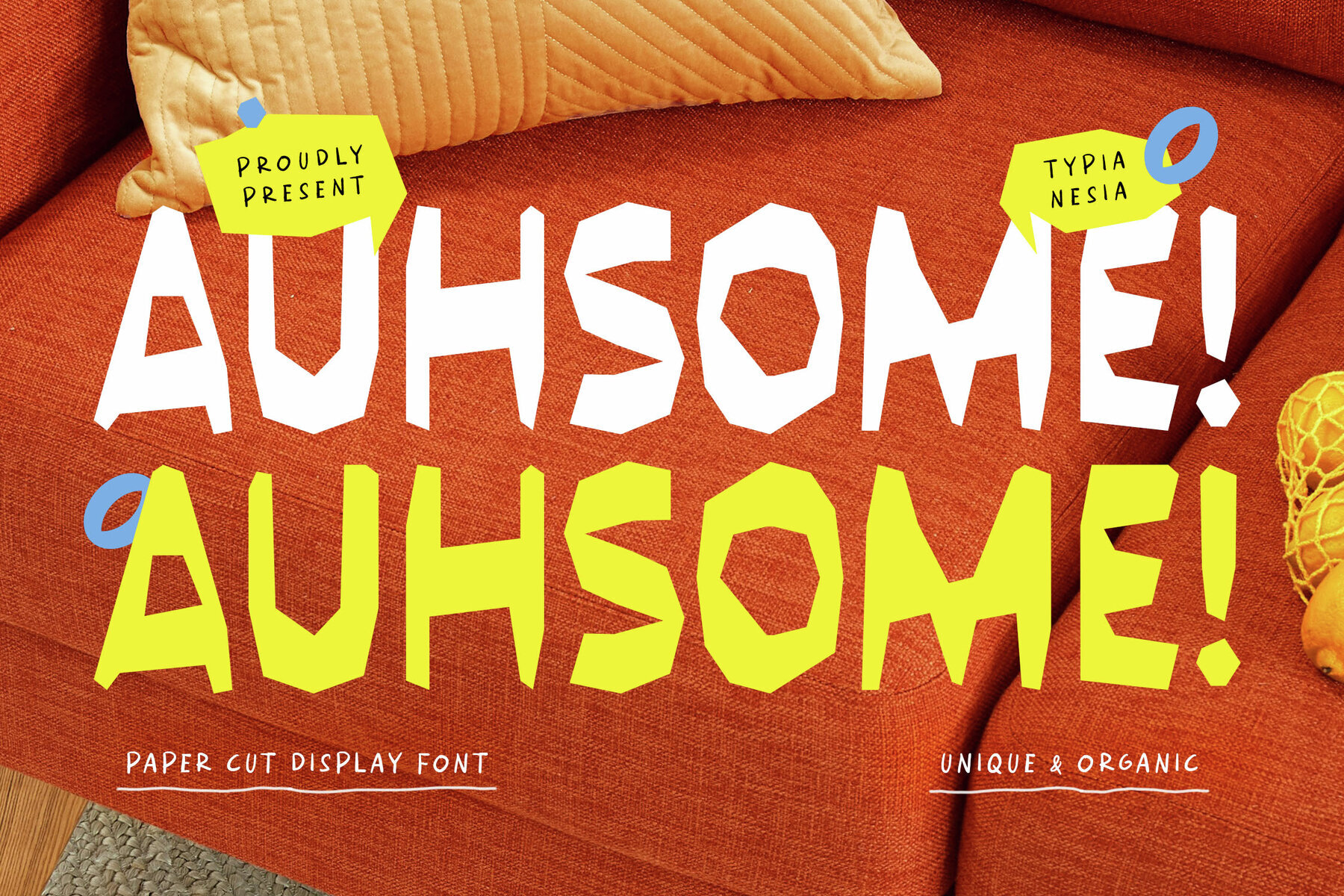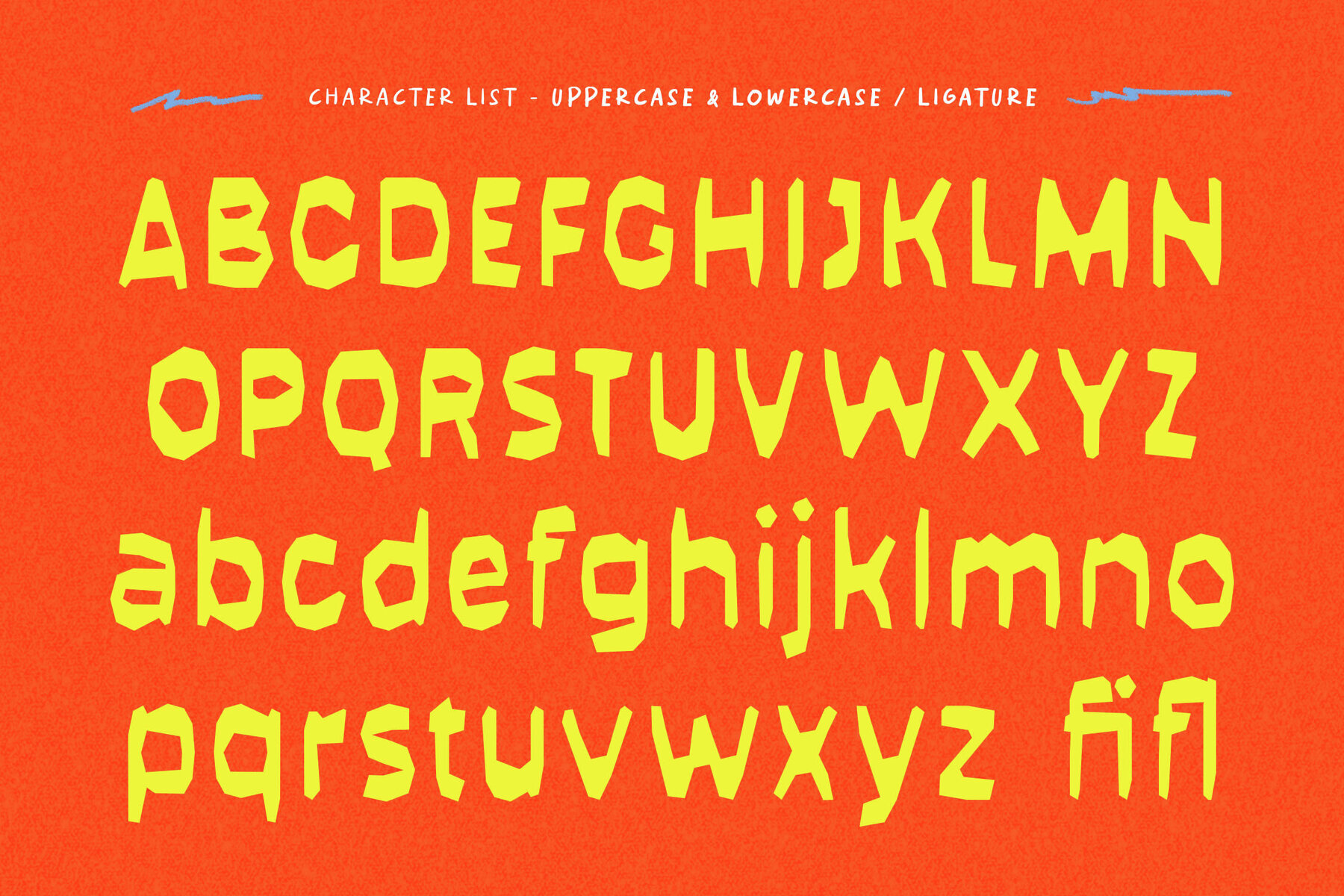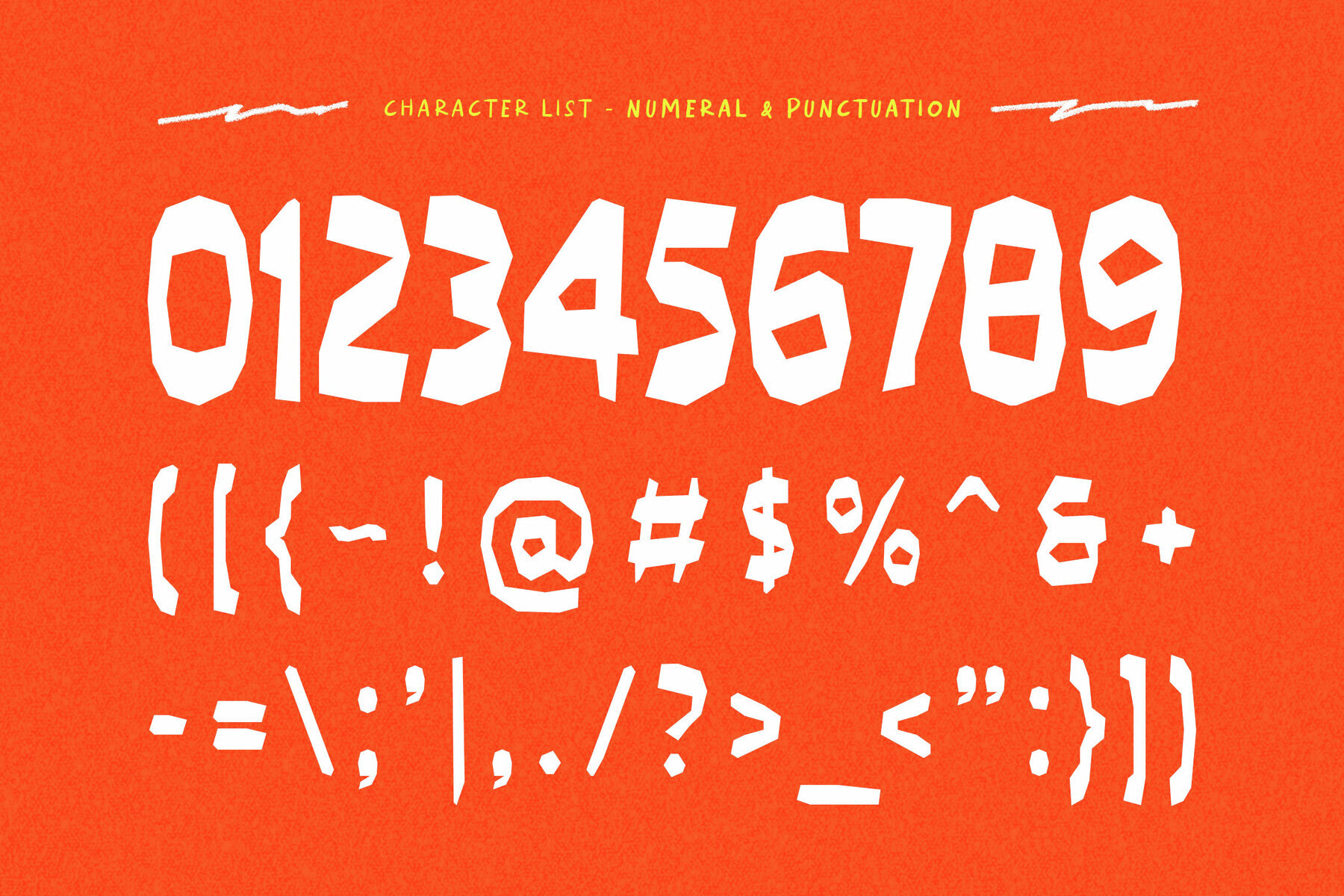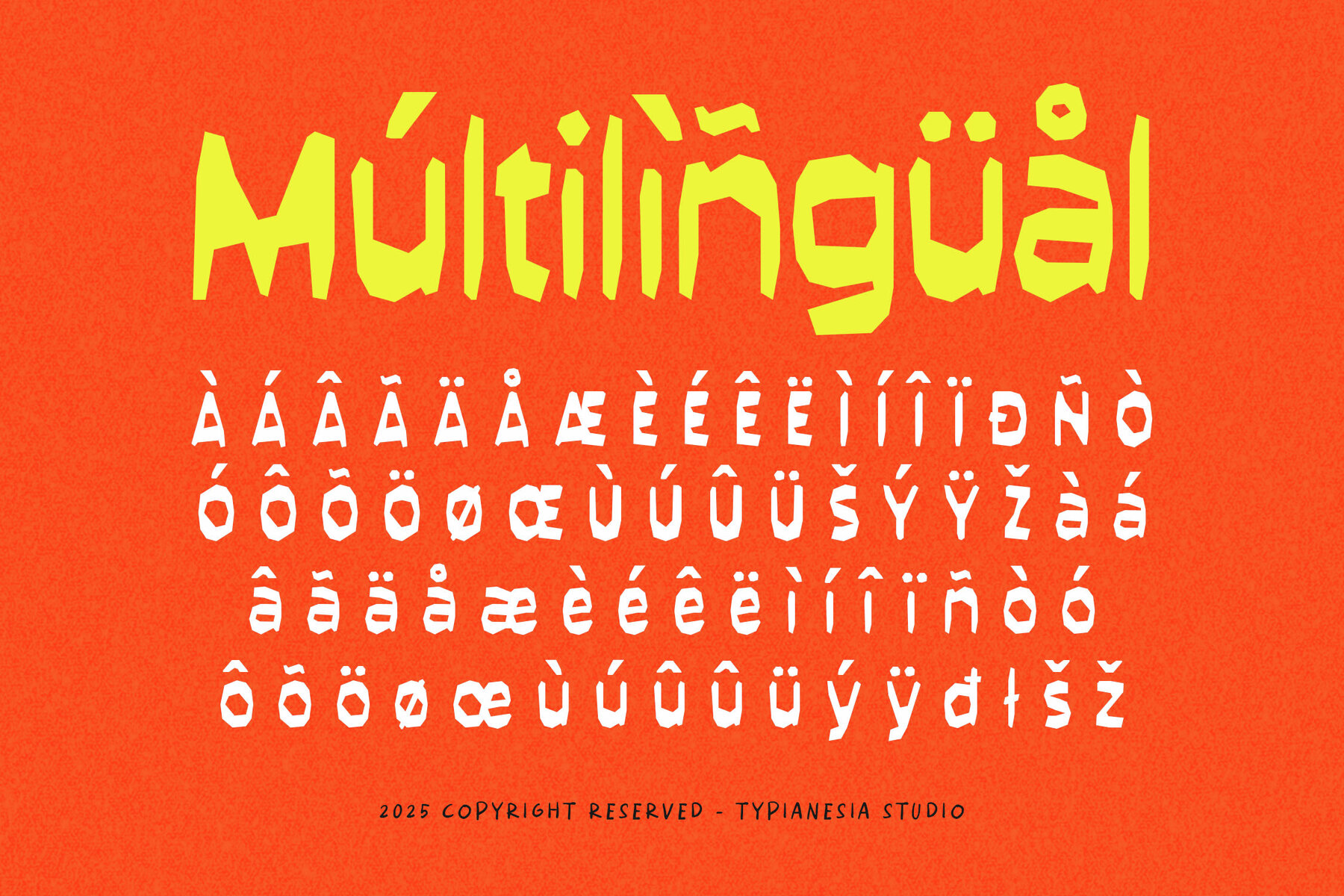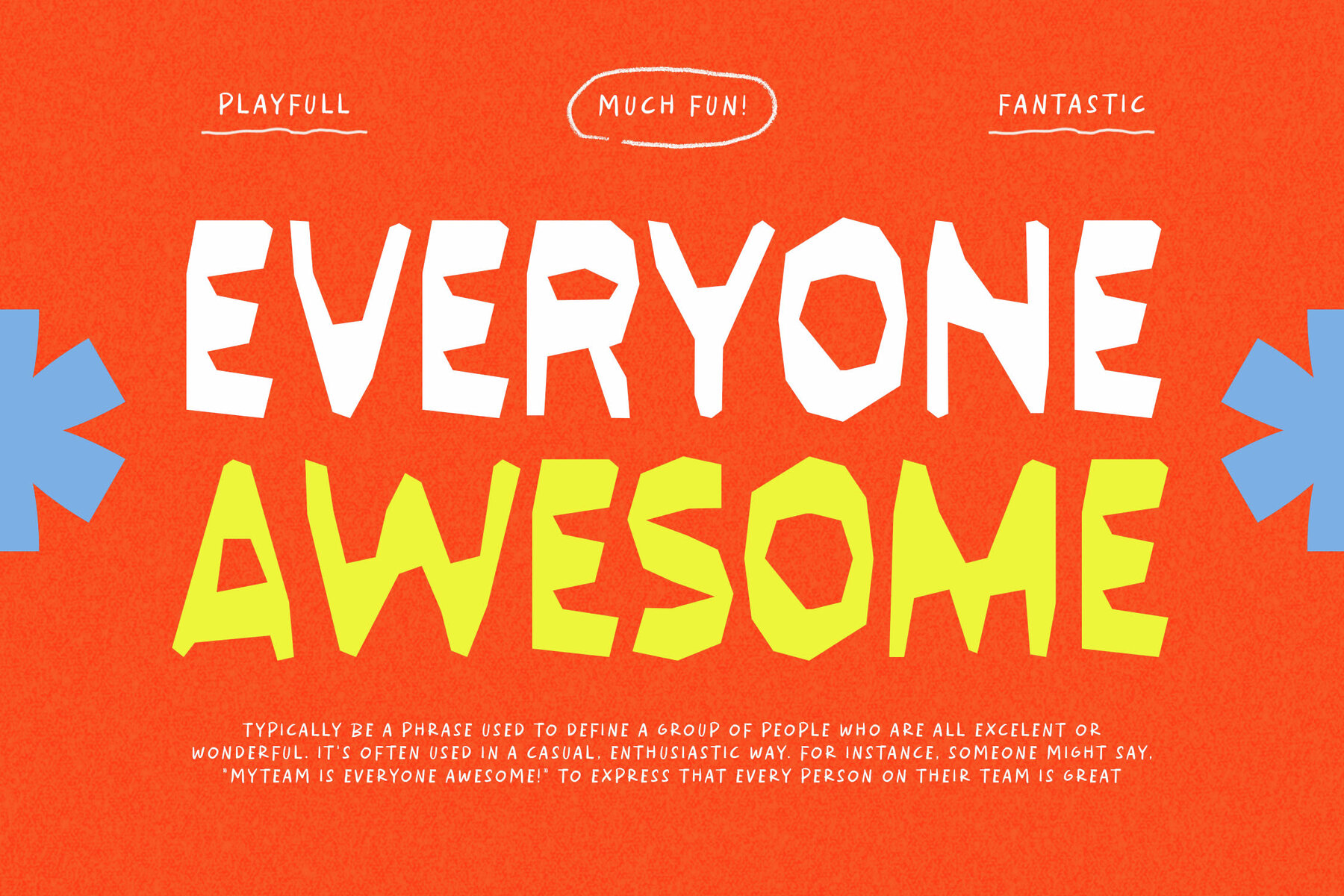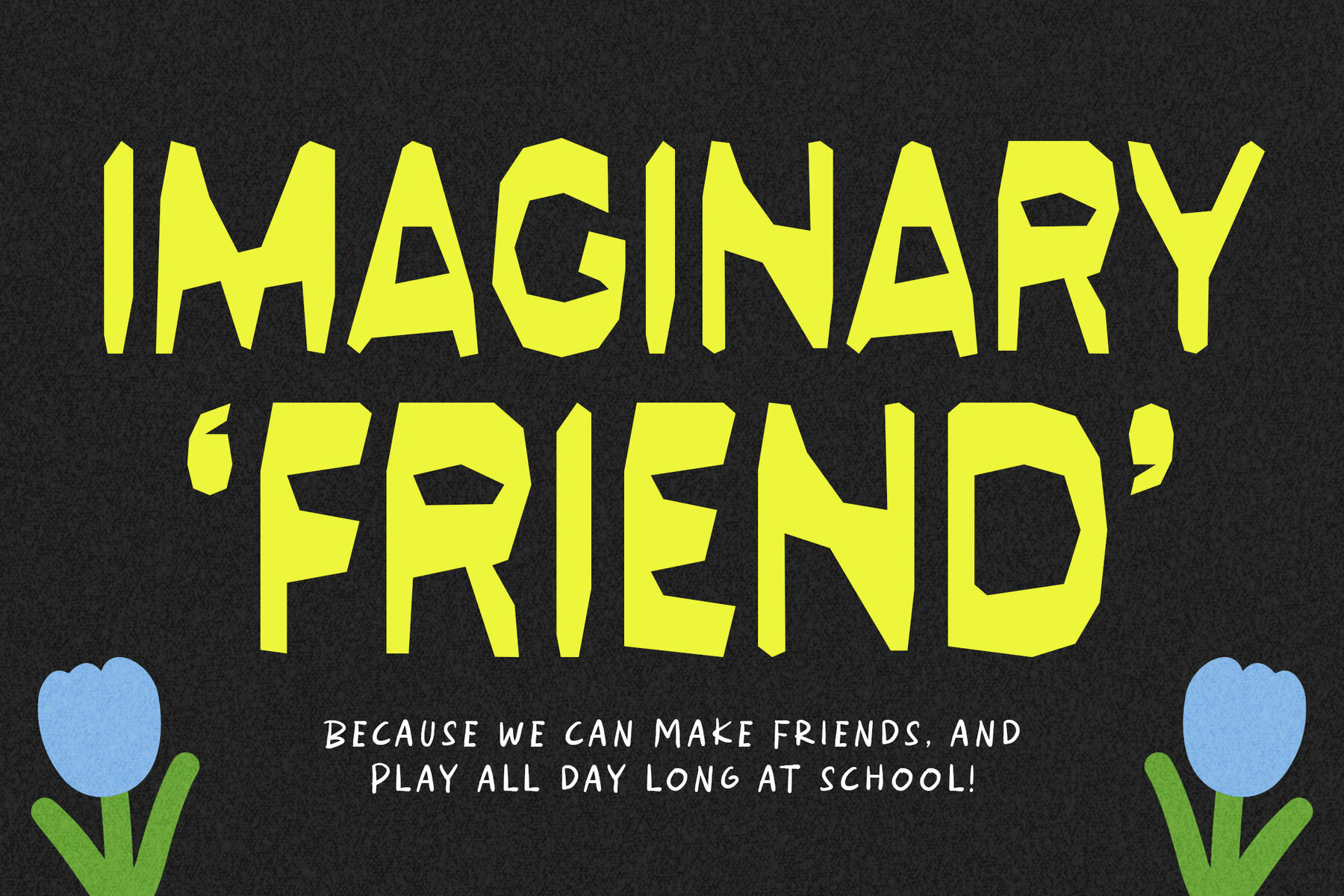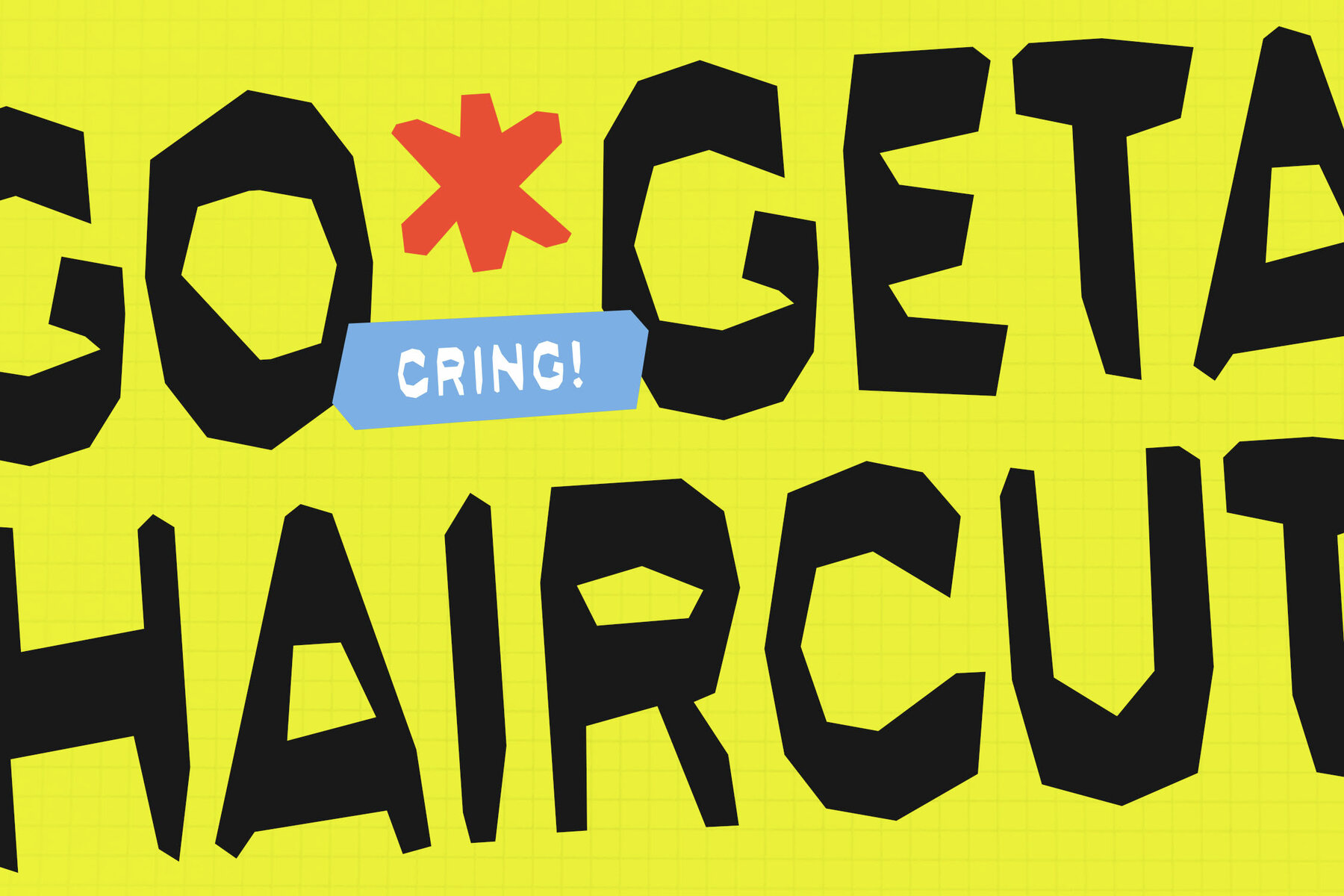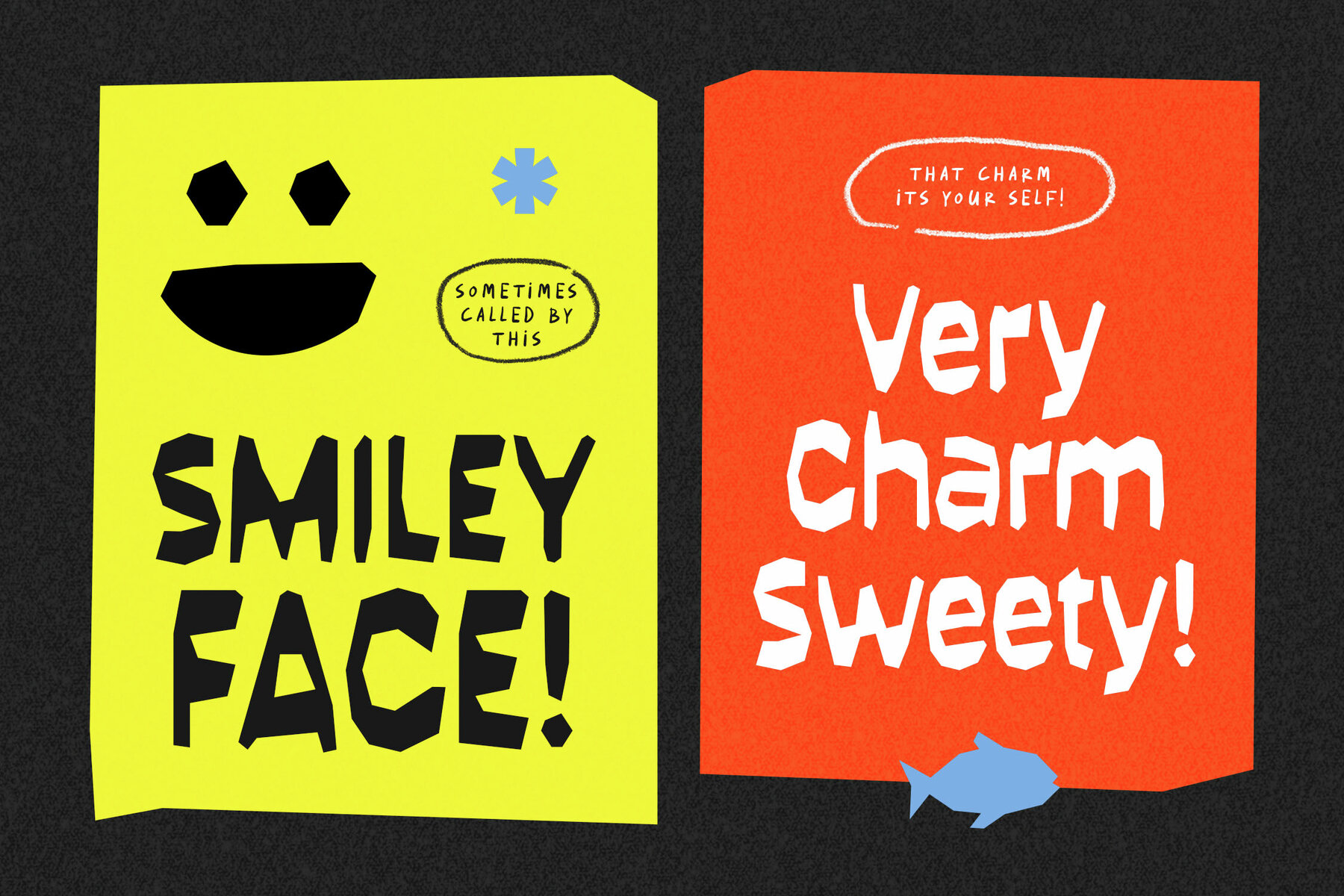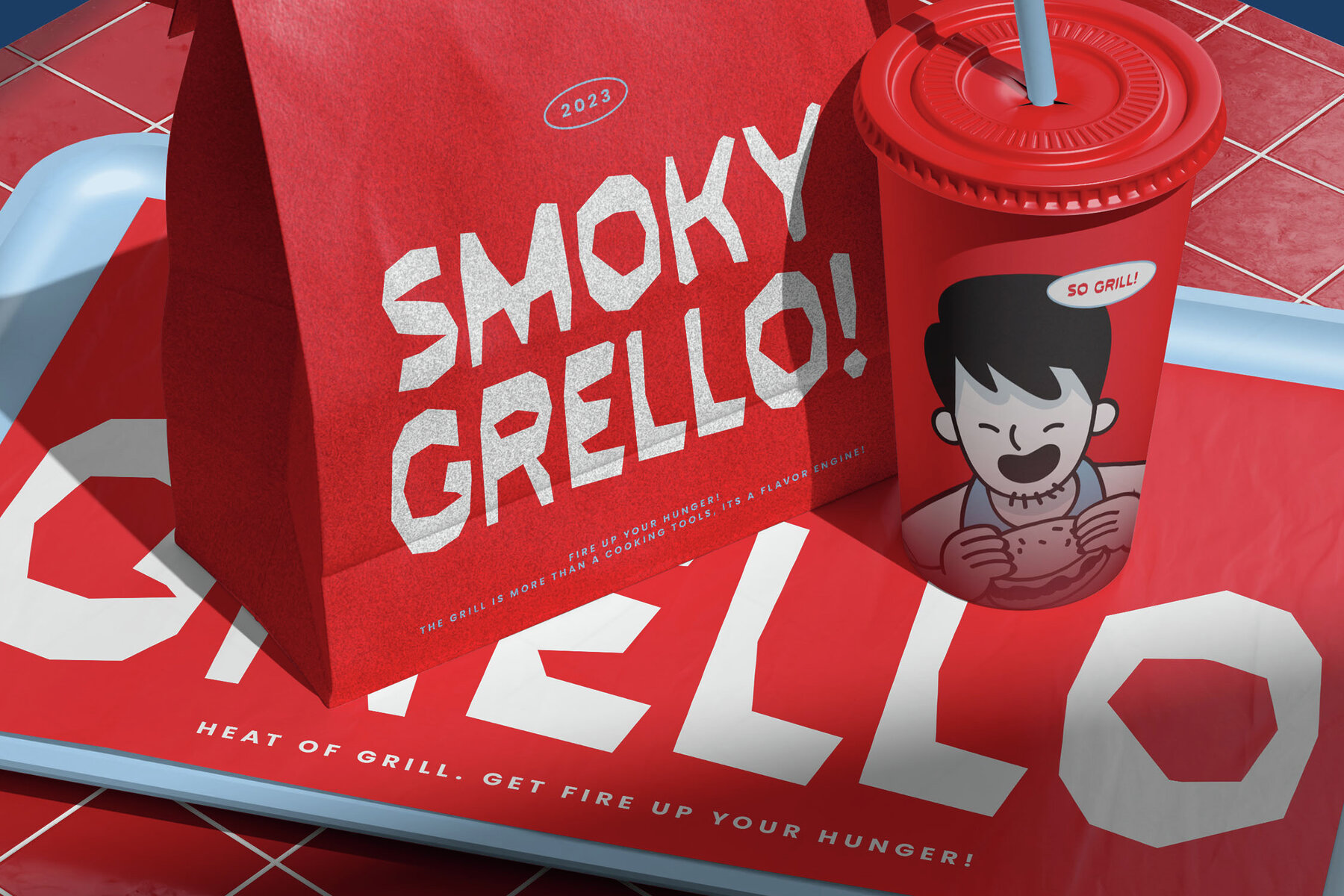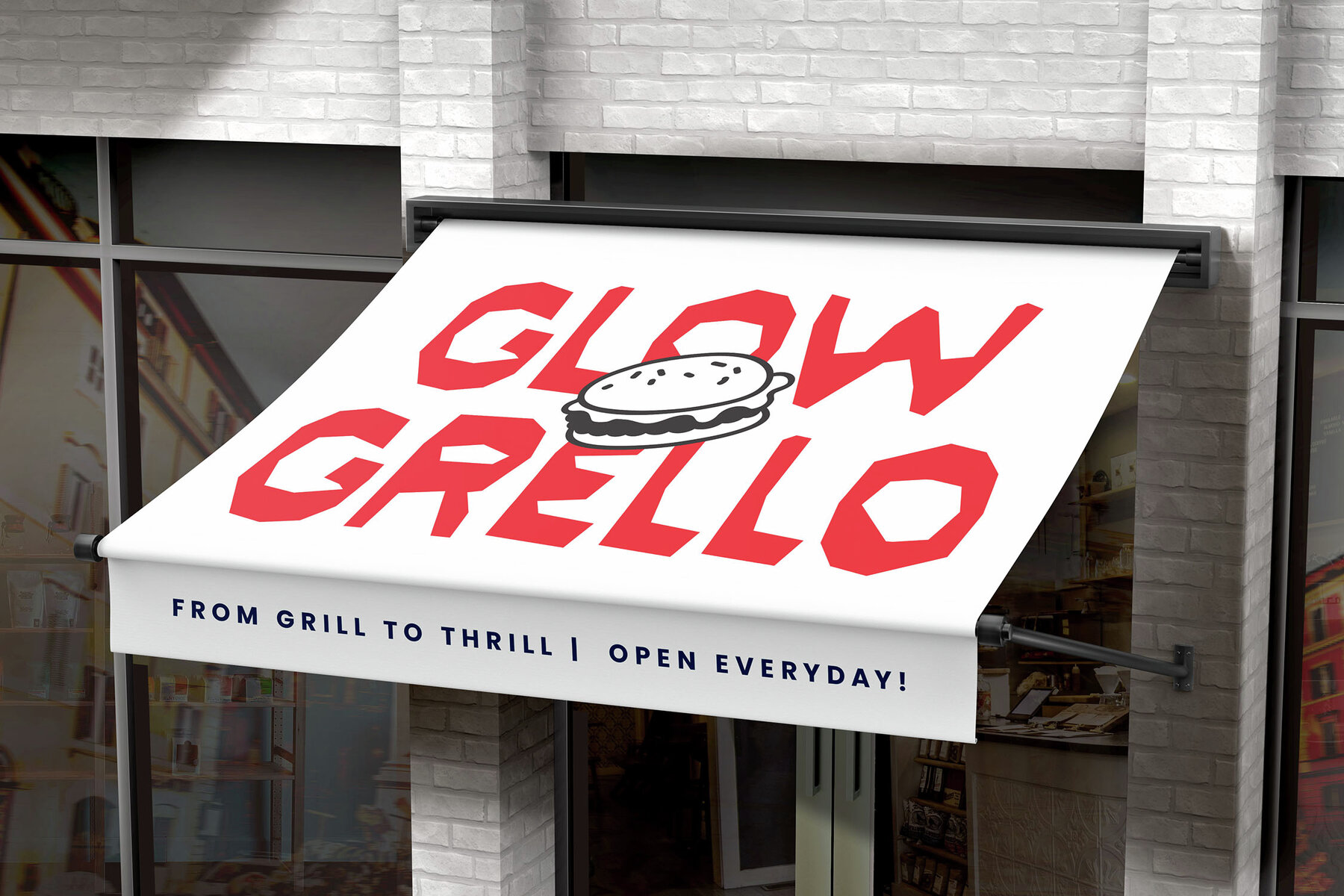
Auhsome Font
Auhsome Regular
Auhsome is a distinct and organic typeface crafted to infuse a funky, playful vibe into all creative endeavors. Its bold, irregular shapes mimic the texture of cut paper, making it ideal for vibrant headlines, engaging branding, and dynamic product packaging. Whether your project involves beverage labels, toy branding, or children's promotional materials, Auhsome's cheerful presence assures a fresh and memorable message. Beyond its striking display features, Auhsome includes a full set of characters, numbers, and punctuation. Its design supports multilingual use, broadening the scope for global reach. This font serves as a perfect tool for graphic designers aiming to produce visuals that stand out with originality.Auhsome: A Unique Handcrafted Paper Cut Display Font